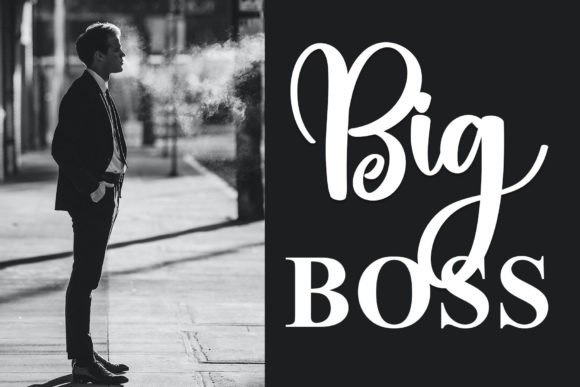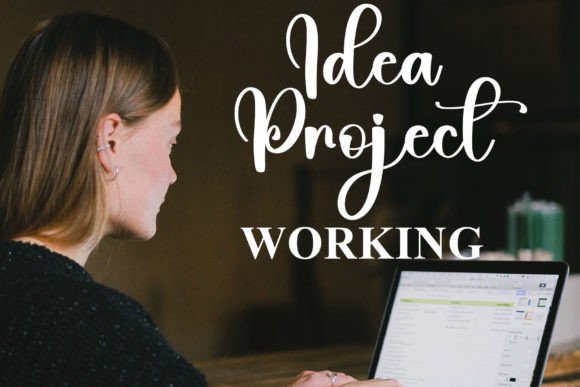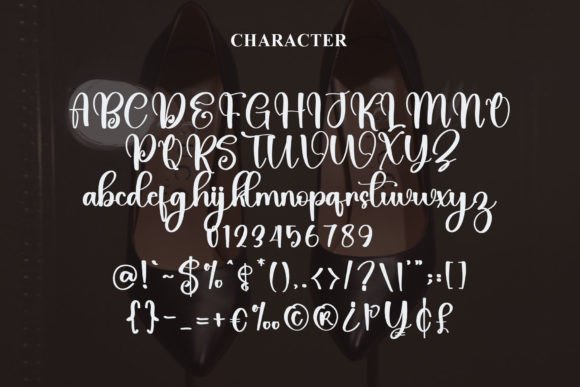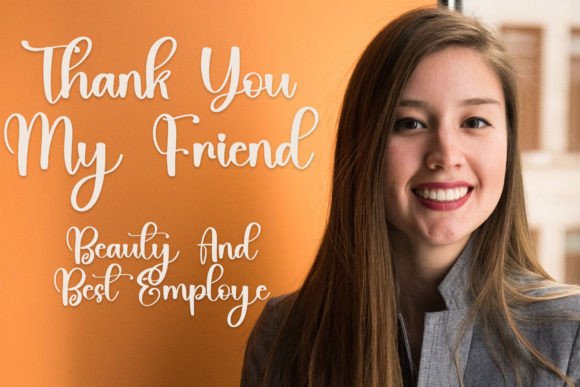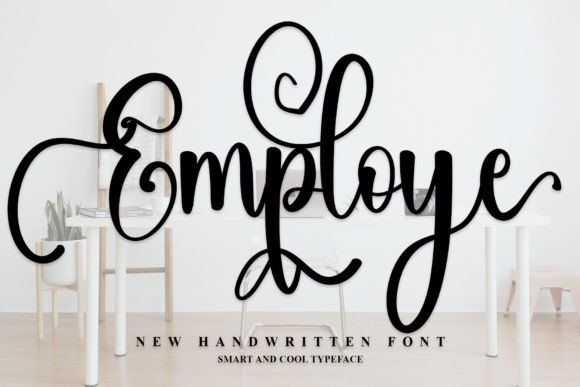
Introducing Employe Font: The Cute Handwritten Font with a Fun and Quirky Personality
Are you tired of using the same old fonts in your designs? Do you want to add a touch of uniqueness and whimsy to your projects? Look no further than Employe Font, a cute handwritten font with a fun and quirky personality. In this article, we’ll explore the features and benefits of Employe Font, and why it’s perfect for designers and crafters looking to add a personal touch to their work.
The Unique Characteristics of Employe Font
Employe Font is a handwritten font that stands out from the crowd with its irregular and playful letterforms. Its natural, handwritten style creates a sense of whimsy and individuality, making it perfect for designs that require a touch of uniqueness. The font’s irregularities and quirks give it a charming and personal feel that’s hard to replicate with more traditional fonts.
The Benefits of Using Employe Font
So why choose Employe Font for your next project? Here are just a few benefits of using this versatile and charming font:
• Uniqueness: Employe Font’s irregular and playful letterforms ensure that your designs will stand out from the crowd. Whether you’re working on a branding project, a craft project, or a marketing campaign, Employe Font will add a touch of individuality that’s sure to grab attention.
• Personality: Employe Font has a fun and quirky personality that’s perfect for designs that require a touch of whimsy. Its natural, handwritten style adds a charming and personal feel to any project, making it perfect for designers and crafters who want to create a emotional connection with their audience.
• Versatility: Employe Font is a versatile font that can be used in a wide range of projects, from branding and marketing to crafting and DIY projects. Its irregular and playful letterforms make it perfect for headlines, titles, and other display text, while its natural, handwritten style makes it suitable for body text and other written content.
Who is Employe Font for?
Employe Font is perfect for designers and crafters who want to add a touch of uniqueness and personality to their work. Here are just a few examples of who might benefit from using Employe Font:
• Graphic Designers: Employe Font is perfect for graphic designers who want to create unique and eye-catching designs for their clients. Its irregular and playful letterforms make it perfect for logos, branding, and other marketing materials.
• Crafters: Employe Font is also perfect for crafters who want to add a personal touch to their projects. Whether you’re working on a scrapbooking project, a handmade card, or a DIY craft, Employe Font will add a charming and whimsical touch.
• Small Business Owners: Employe Font is also perfect for small business owners who want to create a unique and memorable brand identity. Its natural, handwritten style makes it perfect for logos, packaging, and other marketing materials.
How to Use Employe Font
Using Employe Font is easy! Here are just a few tips for incorporating it into your next project:
• Pair it with other fonts: Employe Font pairs perfectly with other fonts, especially sans-serif fonts like Arial or Helvetica. Try pairing it with a bold font for a striking contrast.
• Use it for headlines: Employe Font’s irregular and playful letterforms make it perfect for headlines and titles. Use it to grab attention and add a touch of whimsy to your designs.
• Experiment with colors: Employe Font looks great in a wide range of colors, from bright and bold to pastel and subtle. Experiment with different colors to find the perfect look for your project.
In conclusion, Employe Font is a cute handwritten font with a fun and quirky personality that’s perfect for designers and crafters looking to add a touch of uniqueness and whimsy to their work. Its irregular and playful letterforms create a sense of individuality and personality, making it perfect for designs that require a personal touch. Whether you’re working on a branding project, a craft project, or a marketing campaign, Employe Font is sure to add a charming and whimsical touch.